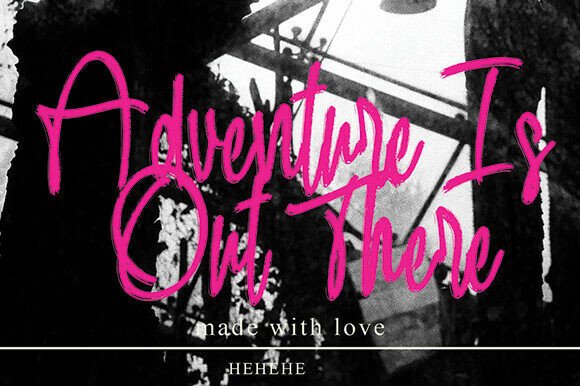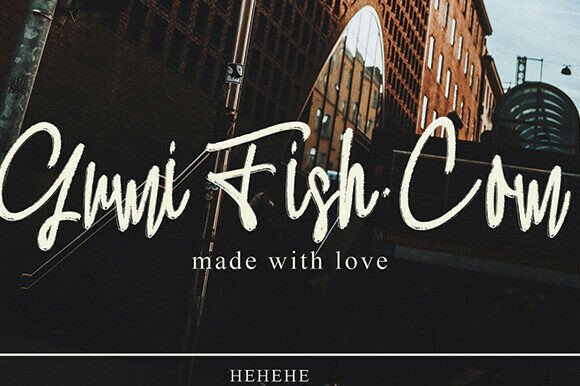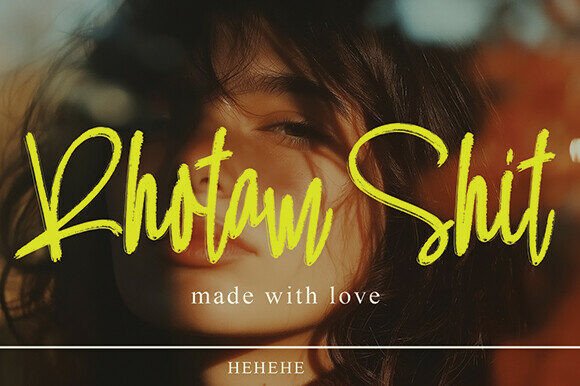
Introduction to Robertto Lawshon Font
As a designer, have you ever found yourself struggling to convey the perfect message in your projects? Maybe it’s the missing spark that keeps your design from standing out, or perhaps it’s the need for a unique touch to elevate your creative vision. Whatever the reason, we’ve got just the thing to help you bring your ideas to life: the enchanting Robertto Lawshon Font.
This stunning handwritten font is more than just a pretty face – it’s a versatile design resource that can add a touch of sophistication and elegance to any project. With its flowing, high-quality lines and transparent background, Robertto Lawshon Font is perfect for designers looking to add a personal touch to their work.
Key Features of Robertto Lawshon Font
- High-quality typography: The Robertto Lawshon Font is designed to provide a professional and elegant look for any creative project, making it an excellent design resource.
- Transparent background: This font features a transparent background, allowing for easy integration with various design elements and backgrounds.
- Unique script style: The Robertto Lawshon Font features a unique script style that adds a touch of elegance and sophistication to any design project.
- Perfect for creative projects: The font is ideal for use in creative projects such as wedding invitations, birthday cards, and other design materials that require a high level of visual appeal.
Honest Review: Robertto Lawshon Font
As a designer, I’m always on the lookout for high-quality design resources that can elevate my creative projects. Recently, I stumbled upon the Robertto Lawshon Font, and I must say, it’s been a game-changer for me. ✨
Here’s what I love about this font: its unique blend of modern and vintage styles makes it perfect for a variety of design applications, from branding to editorial design. The transparent background allows for seamless integration with any design element, making it a versatile design resource. I’ve used it in multiple projects, and the results have been nothing short of amazing.
However, I do have a few limitations to mention: ⚠️
- The font might be a bit too bold for some design applications, so use it sparingly to avoid overwhelming the viewer.
- The font family is relatively small, so you might not find as many variations as you’d like.
Overall, I’m thoroughly impressed with the Robertto Lawshon Font. It’s a fantastic addition to any designer’s toolkit, and I highly recommend it for any creative project that requires a high-quality, modern font with a touch of vintage flair. The free download is an added bonus, making it an excellent value for designers on a budget.
The Robertto Lawshon Font is a high-quality, free design resource ideal for creative projects. Its transparent background makes it versatile for various applications.
To get the most out of the Robertto Lawshon Font, experiment with different font sizes, colors, and combinations to achieve a unique design look.
The Robertto Lawshon Font is ideal for creating eye-catching headlines, titles, and subtitles for various creative projects, such as brochures, posters, and social media graphics.